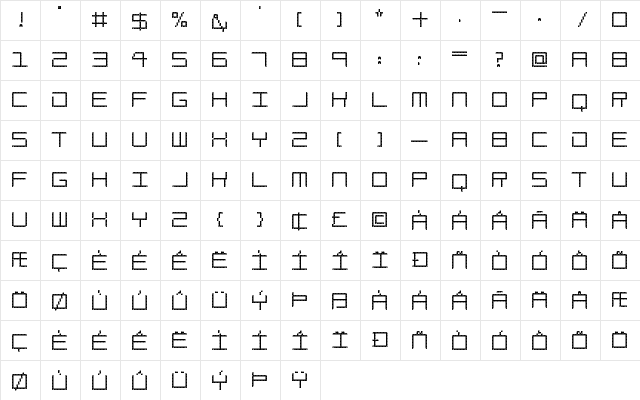
Amaya Technical Curve Regular
Design Context for Amaya Technical Curve Typeface
Amaya Technical Curve channels digital-age aesthetics through its sharp, structured letterforms — ideal for brands that want to signal innovation.
Pro Tip: Use Amaya Technical Curve in combination with a neutral sans for body text. Let it define the brand voice in headlines while keeping reading comfortable elsewhere.